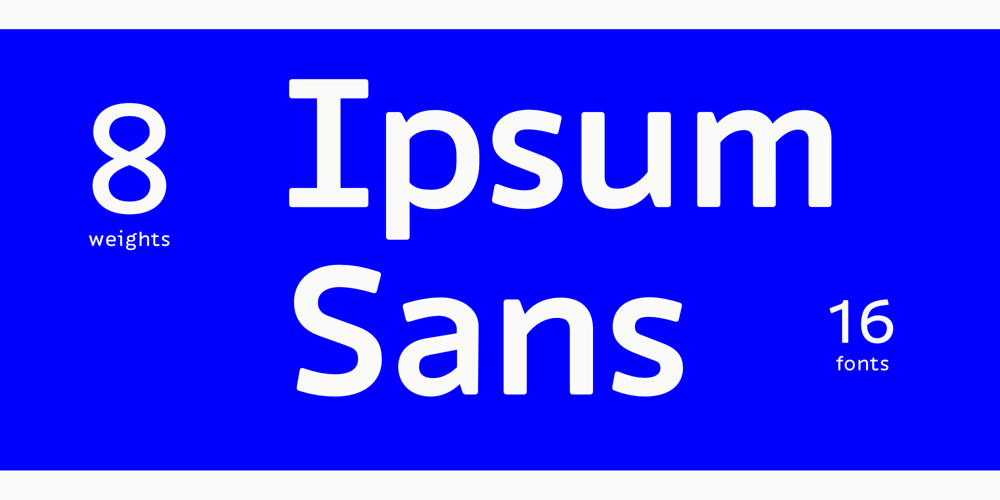
Ipsum Sans
Ipsum Sans font
Ipsum Sans Font Family was designed by Ebern Klause and published by Rawblind Basetype. Ipsum Sans contains 16 styles and family package options. A modern neutral Sans, but with a distinct feel. Great for long reads but also for headlines, branding and advertising.